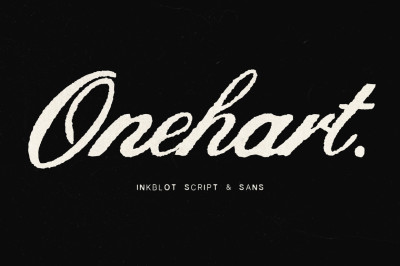
Onehart Script & Sans Font
Onehart Script & Sans delivers a distinctive typographic voice that adapts effortlessly across digital and print applications.
Common applications include business cards, posters, web headers, advertising materials, book covers, and corporate identity systems.